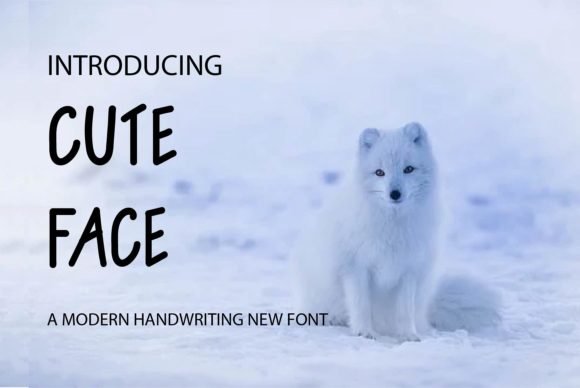
The Perfect Font to Bring Your Ideas to Life
Have you ever stared at a blank canvas, trying to decide on the perfect font to bring your creative vision to life? We’ve all been there – the blank page staring back at us, taunting us with its emptiness. But what if I told you that the solution lies in a playful and casual handwritten font that’s as versatile as it is charming?
Meet Cute Face Font, the ultimate go-to font for designers looking to add a touch of whimsy and personality to their work. Whether you’re crafting a logo, designing a social media campaign, or creating a DIY project, Cute Face Font is the perfect companion to help you turn your ideas into stunning reality. Its value lies in its adaptability, making it an invaluable asset for designers looking to take their creative projects to the next level.
Cute Face Font Key Features
- Character Count: The font contains a large character set, including uppercase and lowercase letters, numbers, punctuation marks, and special characters, making it suitable for various types of text.
- Unique Characteristics: Cute Face Font features a playful, childlike design with rounded edges and smooth lines, making it ideal for creating a friendly and approachable atmosphere in designs.
Cute Face Font Review
Overall, I think Cute Face Font is a solid choice for anyone looking for a playful, whimsical font for their design project. Here are some things that work well:
- ✨ It’s perfect for children’s books, party invitations, and other projects where a touch of whimsy is needed.
- ✨ The font is highly customizable, with a range of options for color, size, and style.
- ✨ It’s easy to read, even at smaller font sizes, which is a bonus for anyone working on a project where legibility is a concern.
That being said, there are a few limitations to consider:
- ⚠️ The font may not be suitable for formal or professional projects, as it can come across as too playful or childish.
- ⚠️ Some users may find the font to be a bit too cartoonish or over-the-top, depending on the project.
- ⚠️ The font may not be compatible with all operating systems or devices, which could lead to display issues.
Overall, I think Cute Face Font is a great choice for the right project. With a little care and consideration, it can add a touch of magic to your design.
Tip: Use Cute Face Font to create fun and playful headings or to add a personal touch to your graphics.
Tip: Use Cute Face Font to create custom graphics or illustrations with a cute and playful touch.
Tip: Use Cute Face Font to create fun and engaging presentations or to add a personal touch to your documents.
Cute Face Font is perfect for:
- Children’s graphics and illustrations
- Playful branding and marketing materials
- Fun and engaging presentations
- Personalized gifts and cards